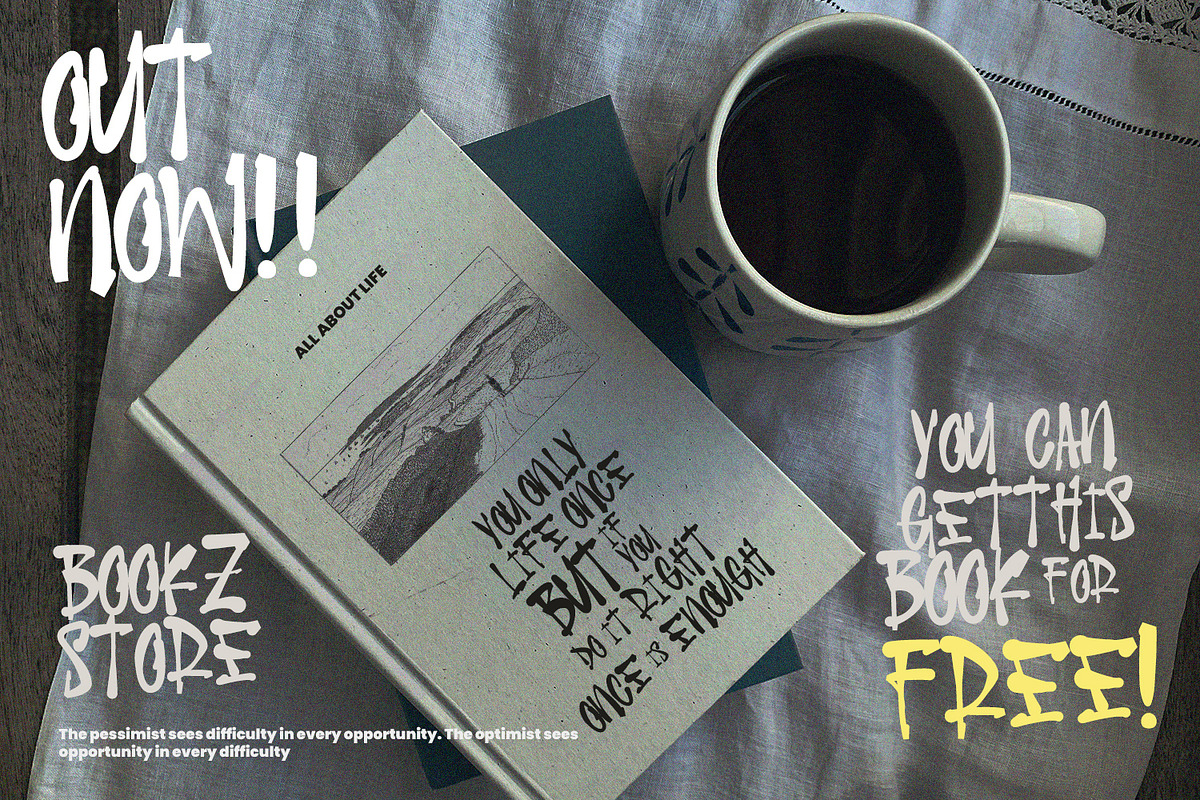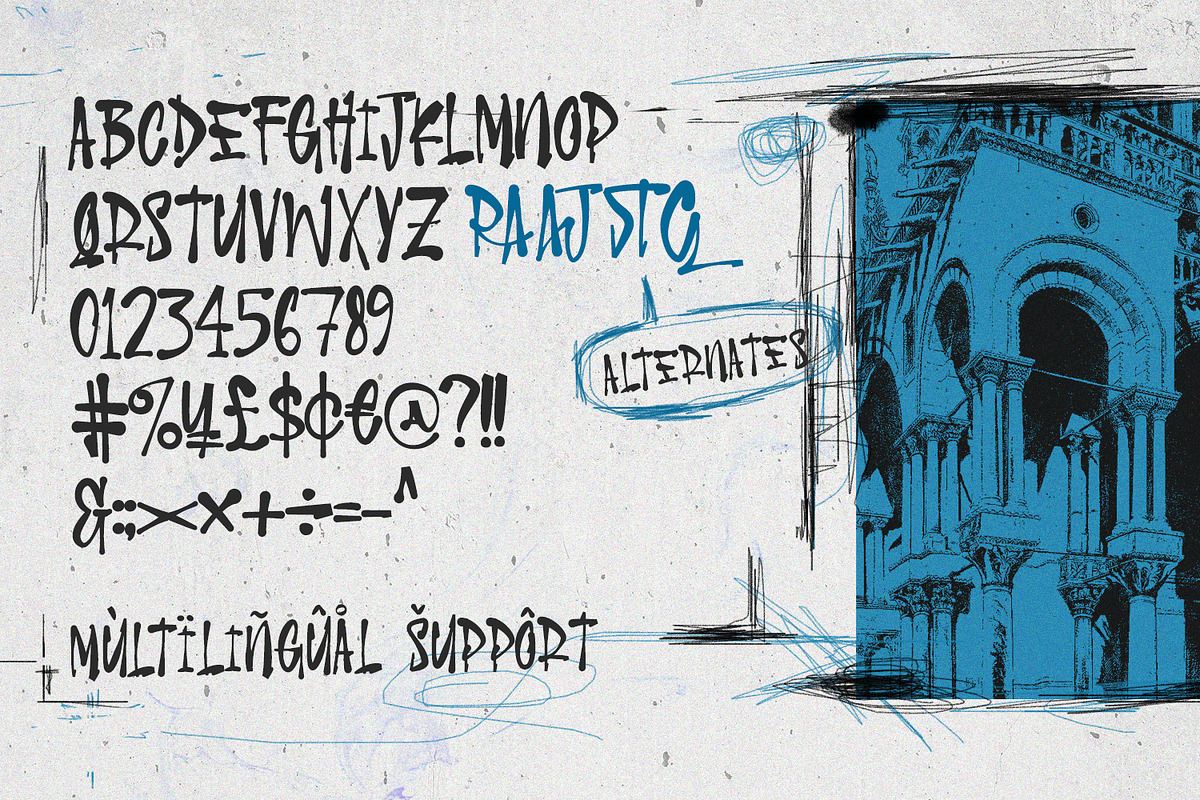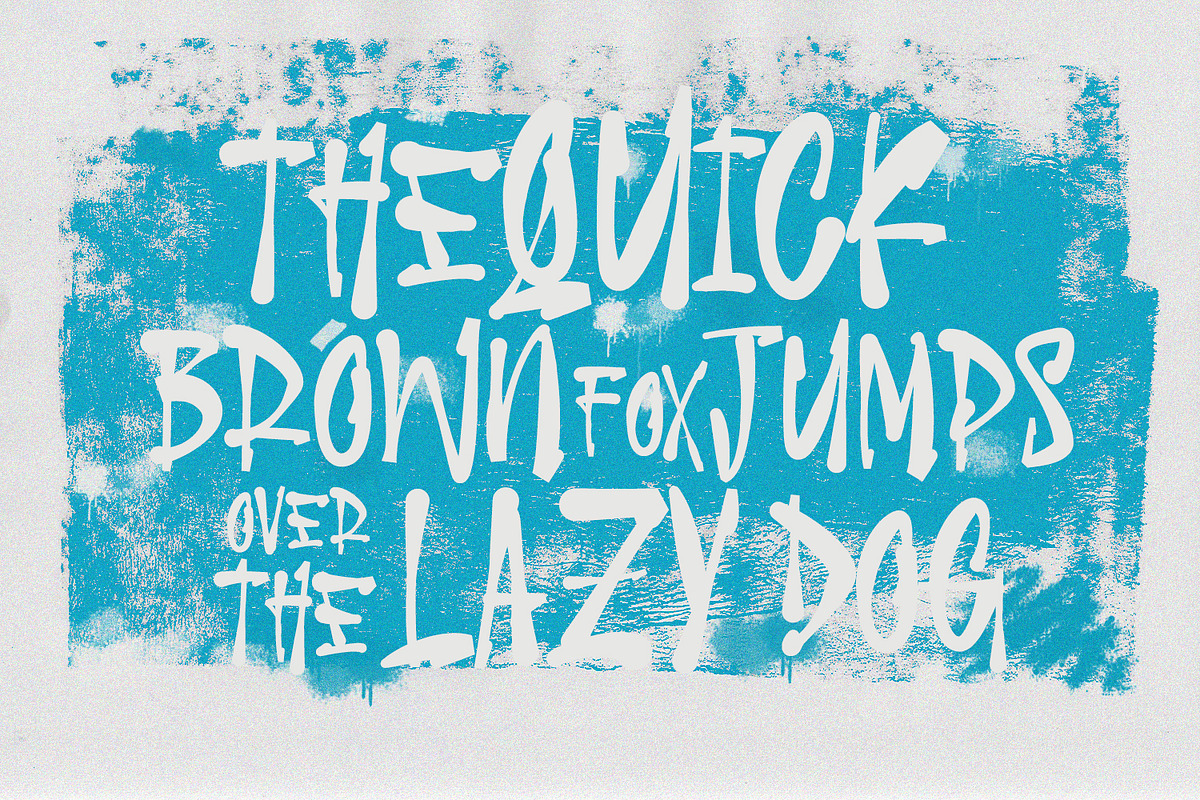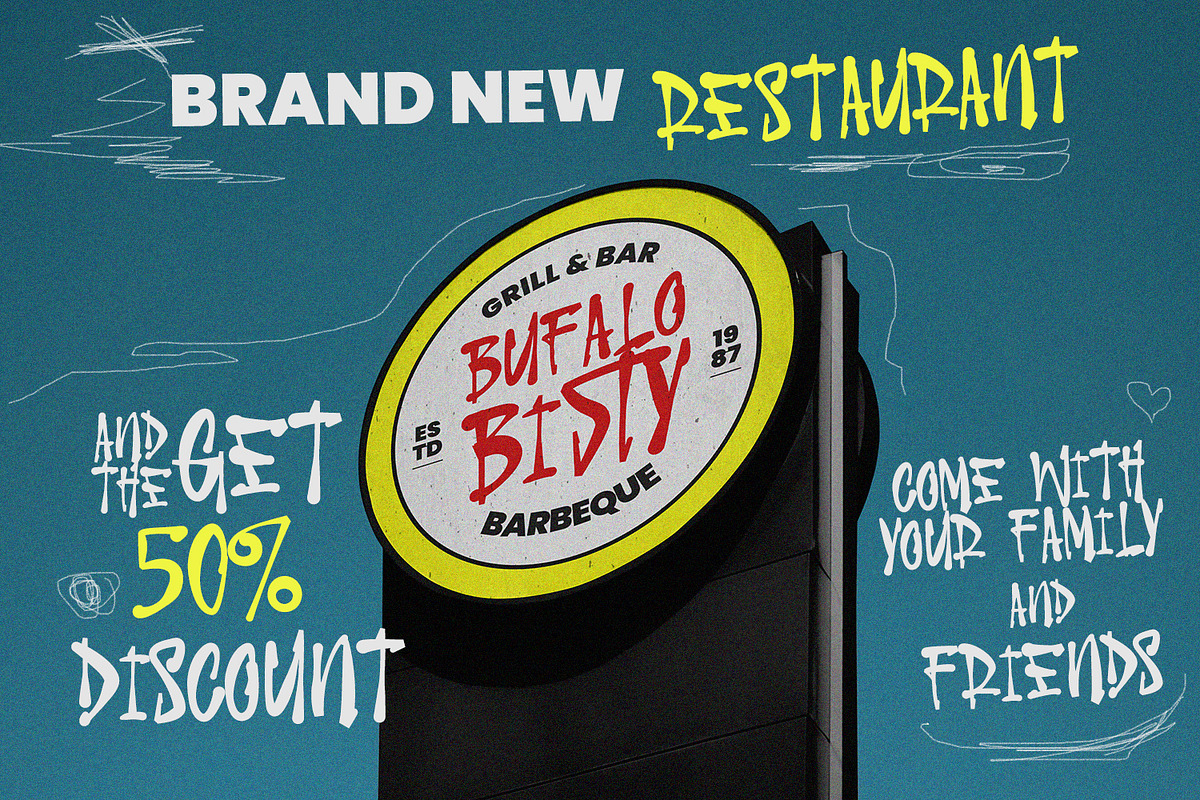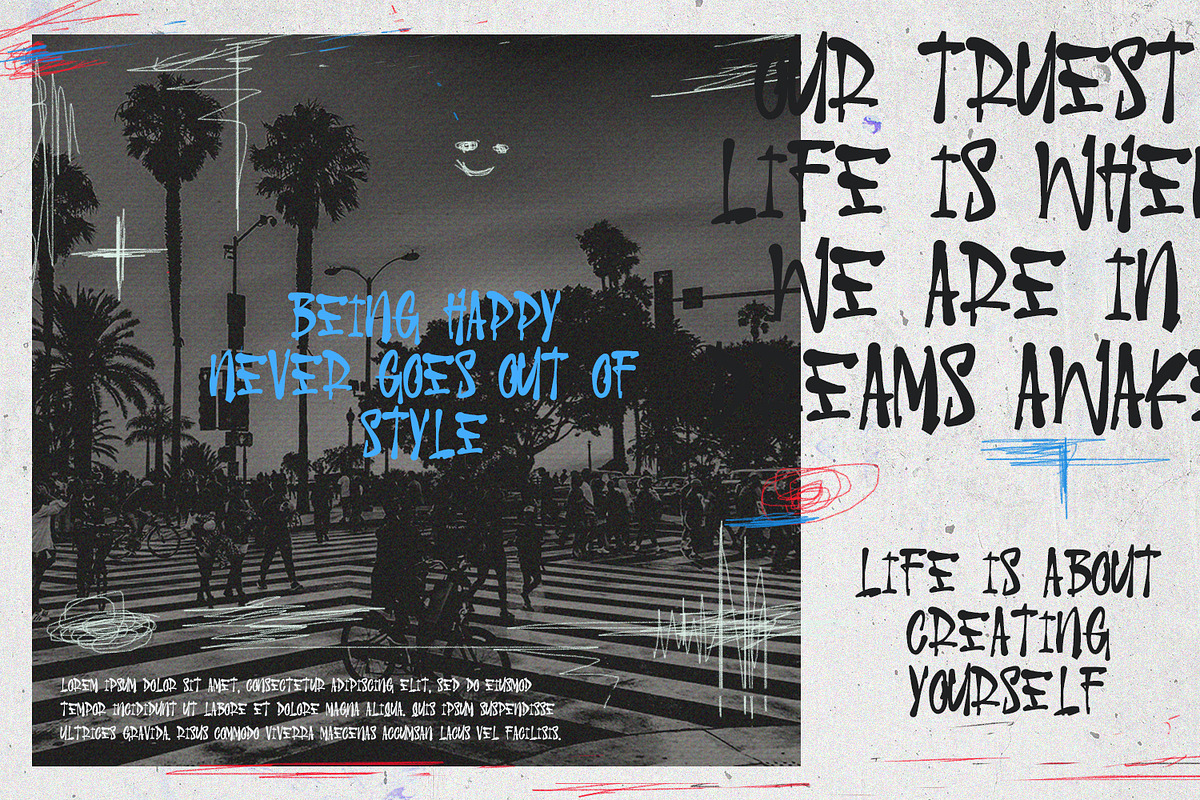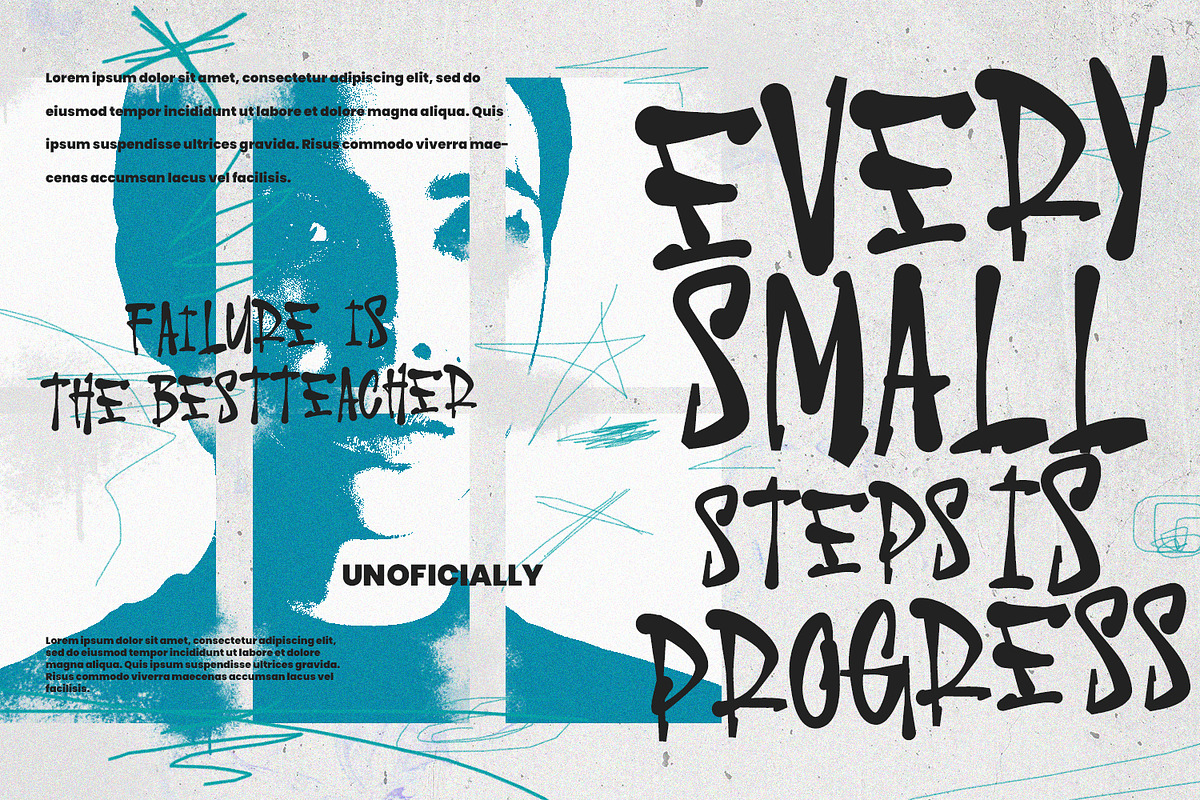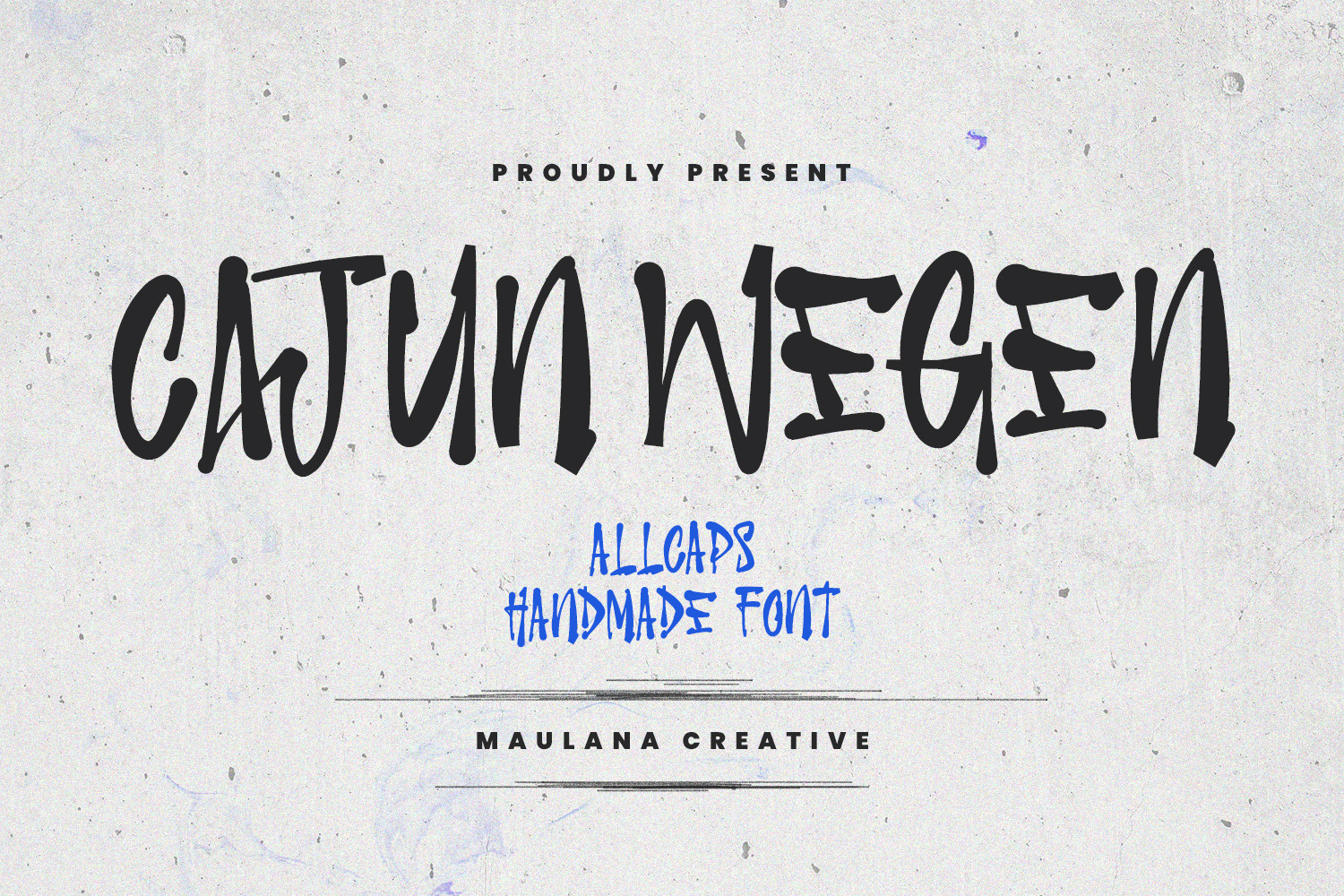
Cajun Wegen All Caps Handmade Font
Cajun Wegen is a all caps handmade brush font handwritten. With fun character with a bit of ligatures and alternative. To give you an extra creative work Cajun Wegen font support multilingual more than 100+ language. This font is good for logo design, Social media, Movie Titles, Books Titles, a short text even a long text letter and good for your secondary text font with sans or serif. Make a stunning work with Cajun Wegen all caps handmade font.